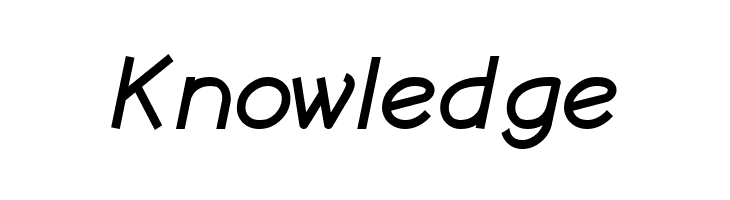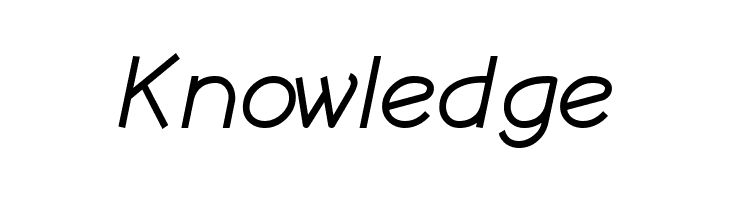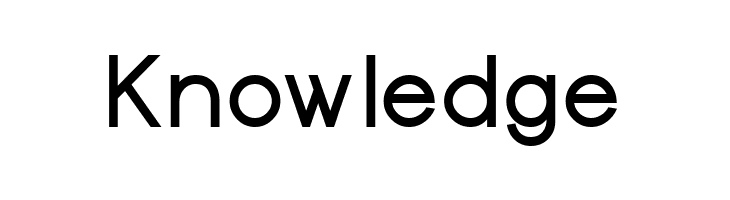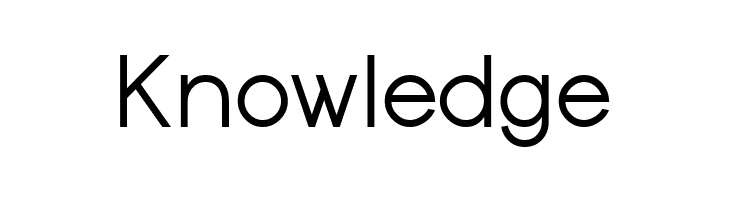
Allstar Regular Font
A bold, outlined font with a geometric, athletic style.
CommercialScript Regular Font
An elegant script font with flowing, high-contrast strokes and ornate flourishes.
Caslon-Bold Font
A bold, classic serif font with pronounced serifs and slight stroke contrast.
FPL Neu Bold Font
A bold, classic serif font with high contrast and strong presence.
FPL Neu Font
A classic serif font with elegant strokes and a refined appearance.
Dustismo Roman Font
A modern serif font with clean lines and elegant style.
Peignot Font
A modern, geometric font with small capitals and a minimalist aesthetic.
Nepali Vijay Font
A bold, geometric font with characters enclosed in rectangular boxes, offering a modern and structured appearance.
Dustismo Font
A modern, geometric sans-serif typeface with uniform stroke widths.
Free Monogram Beta Font
An elegant script font with intricate swirls and flourishes, perfect for formal designs.
Dustismo Roman Bold Font
A bold, classic serif font with strong, elegant strokes.
Coelacanth Display Font
A classic serif font with high contrast and elegant, sharp serifs.
Dustismo Bold Font
A bold, modern sans-serif font with clean lines and balanced proportions.
Soviet Program Bold Italic Font
A bold, italic typeface with angular, futuristic letterforms and decorative elements.
Parisish Font
A modern and elegant font with playful curves and dynamic strokes.
Coelacanth Subheading Font
A classic serif font with elegant, sharp serifs and a traditional yet modern appeal.
Dustismo Italic Font
A sleek, modern italic font with a dynamic and stylish appearance.
Dustismo Roman Italic Font
An elegant italic serif font with flowing curves and refined style.
Eight Track program two Font
A bold, decorative font with blocky characters and playful star elements.
FPL Neu Bold Italic Font